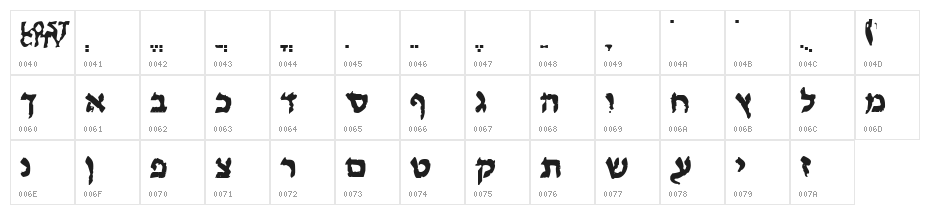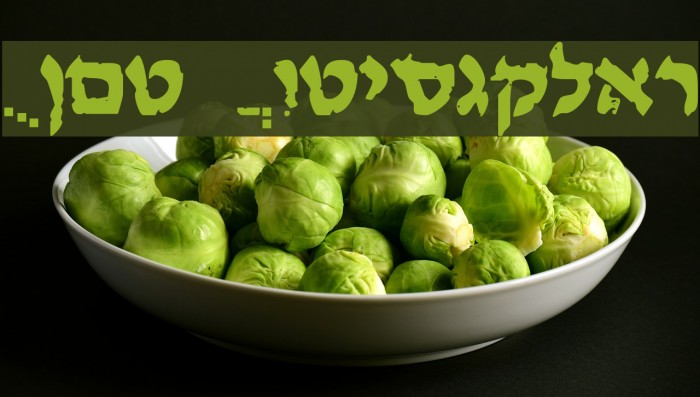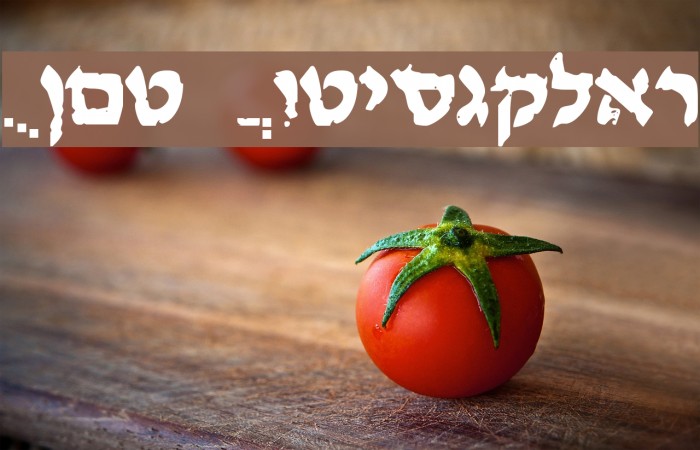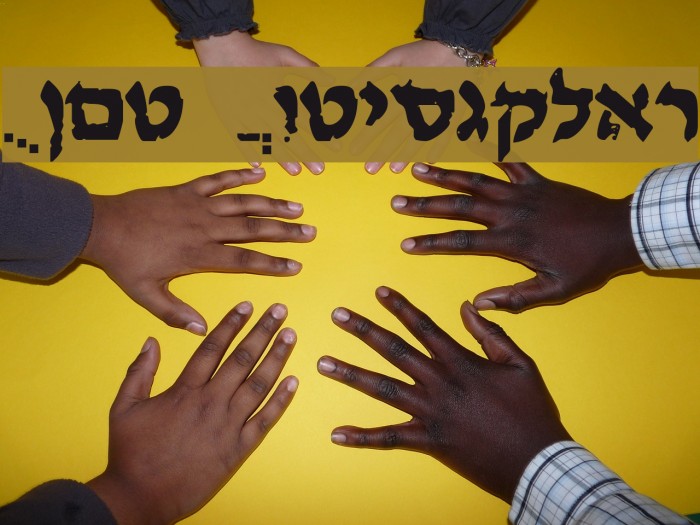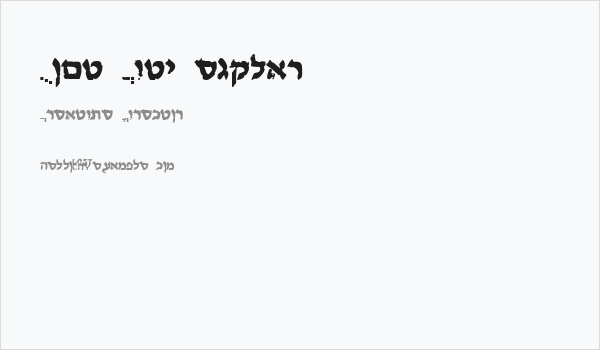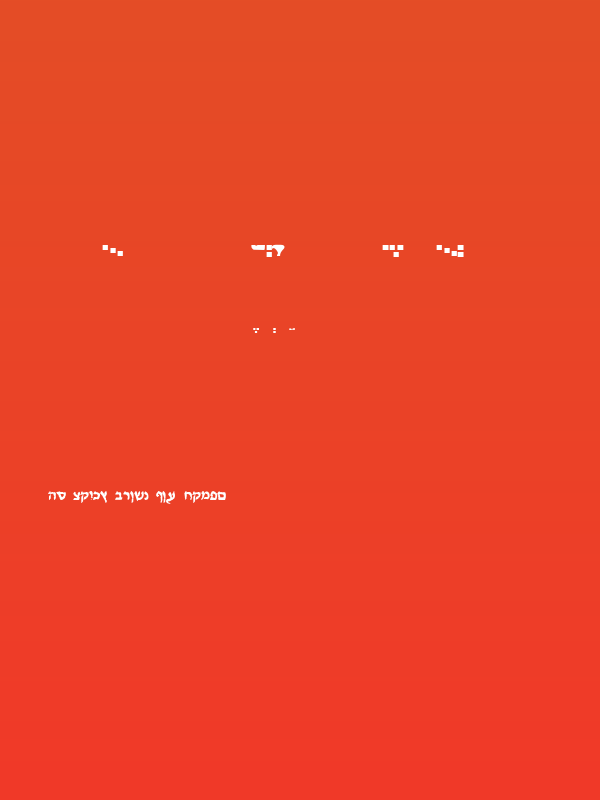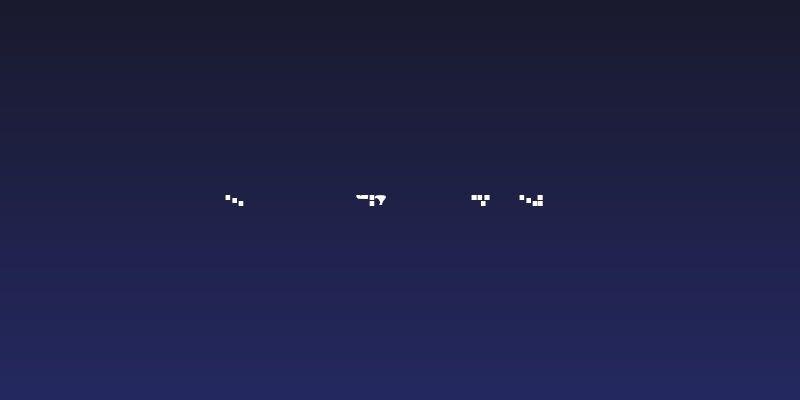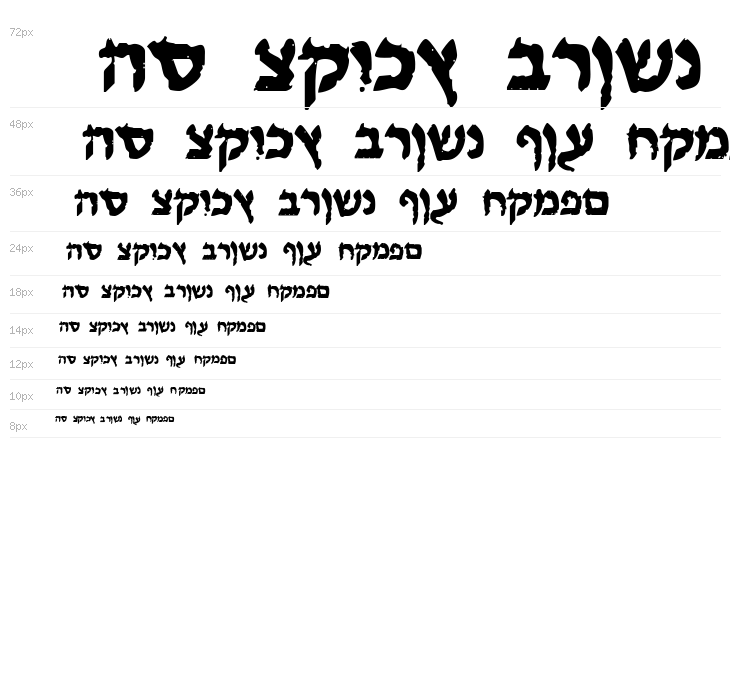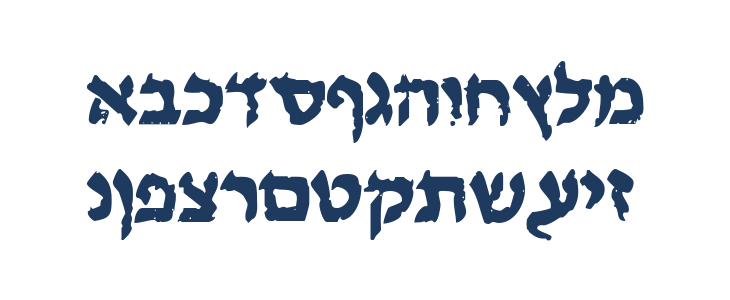
Lost CityRegular Font
Lost CityRegular Description
This font features a bold and rugged design, reminiscent of ancient scripts with a modern twist. The characters are heavily stylized, with rough edges and a distressed appearance that gives them a unique, weathered look. The font maintains a consistent weight throughout, with thick strokes that enhance its boldness. The spacing between characters is relatively tight, contributing to a compact and cohesive appearance. This font's high contrast in stroke thickness adds to its dramatic and eye-catching style, making it suitable for impactful designs.
| Proposed Projects | Ideal for projects requiring a dramatic and historical feel, such as movie posters, book covers, or themed event invitations. |